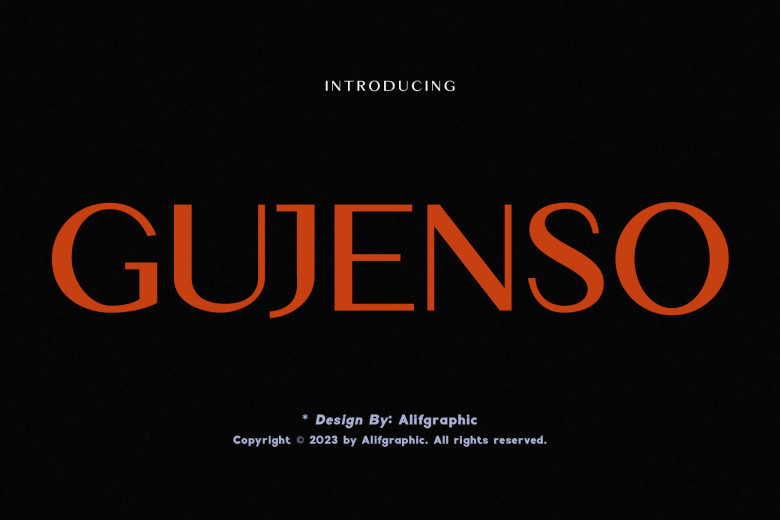
Gujenso Font
Gujenso is an exquisite modern sans font. My website, the logo for my company, a magazine setting and social media applications – all done in a stylish and modern font like this one.
The corresponding fonts guarantee you perfect usage in any project! As long as your design requires something elegant, fashionable, styled with taste and chic, contemporary, this font is tailored for your needs.
Gujenso Sans Serif Font